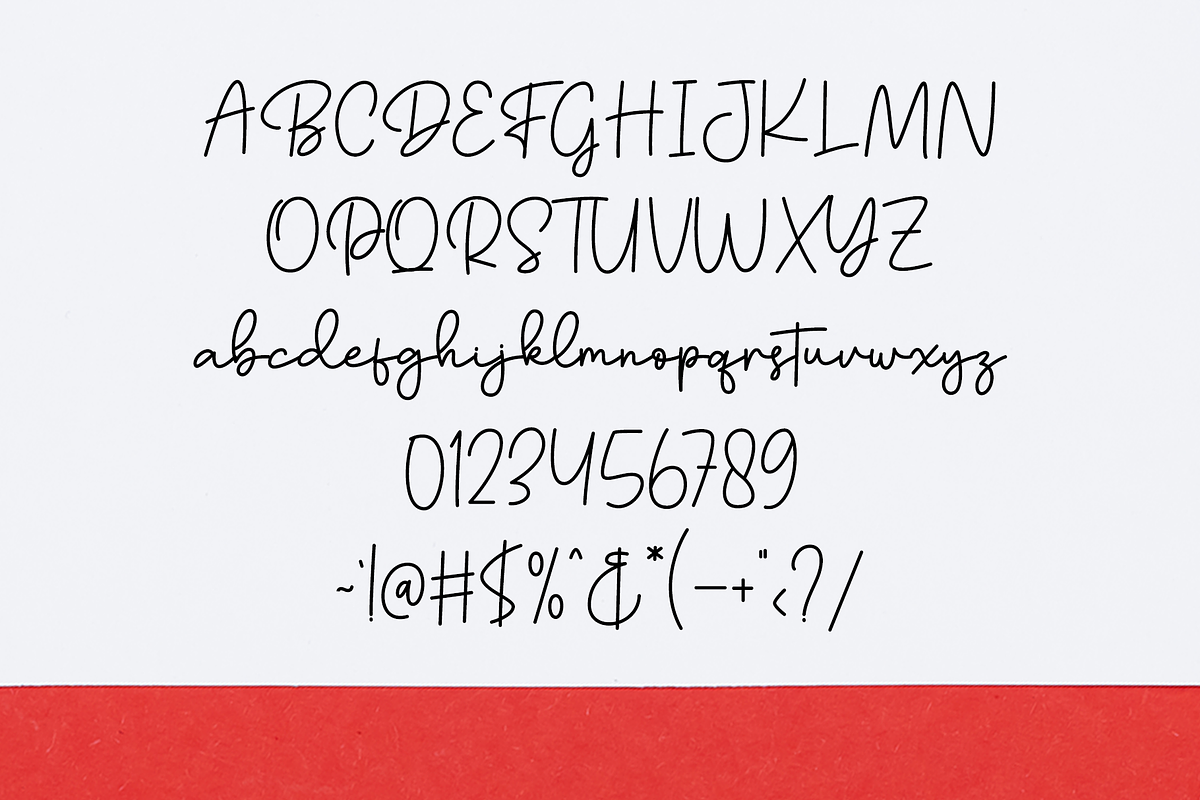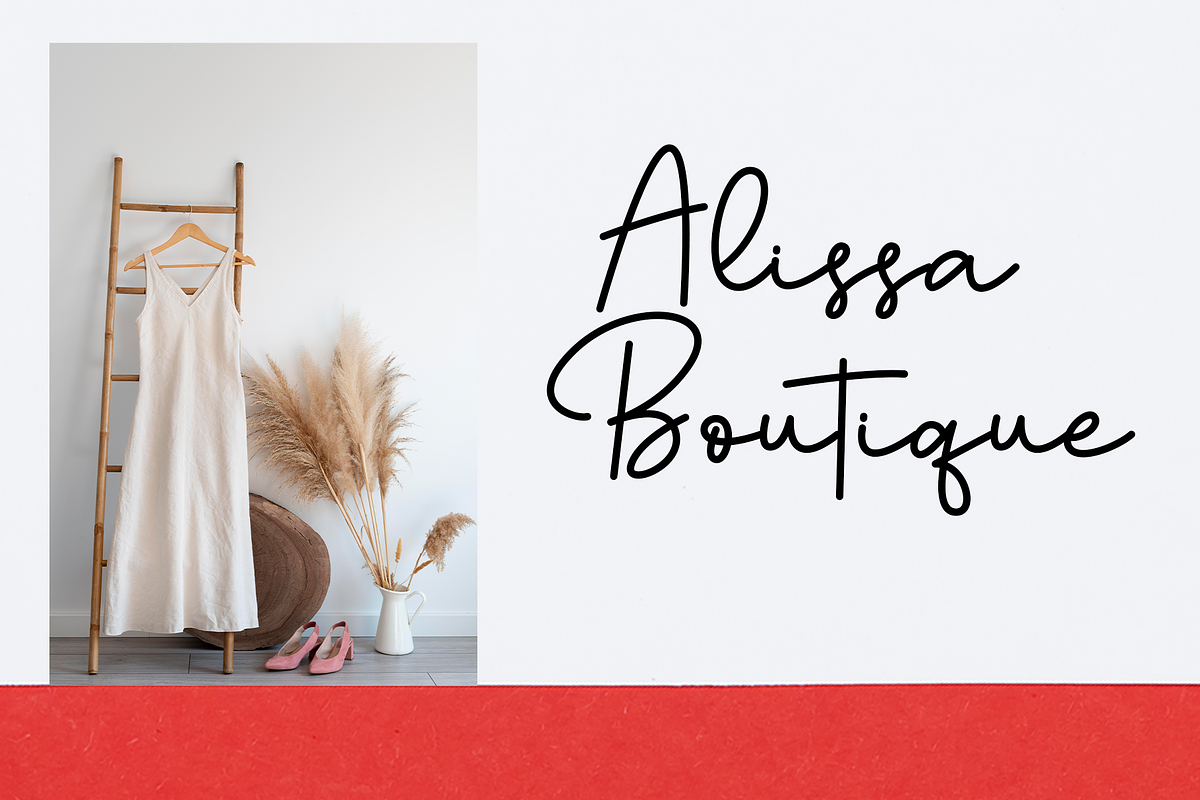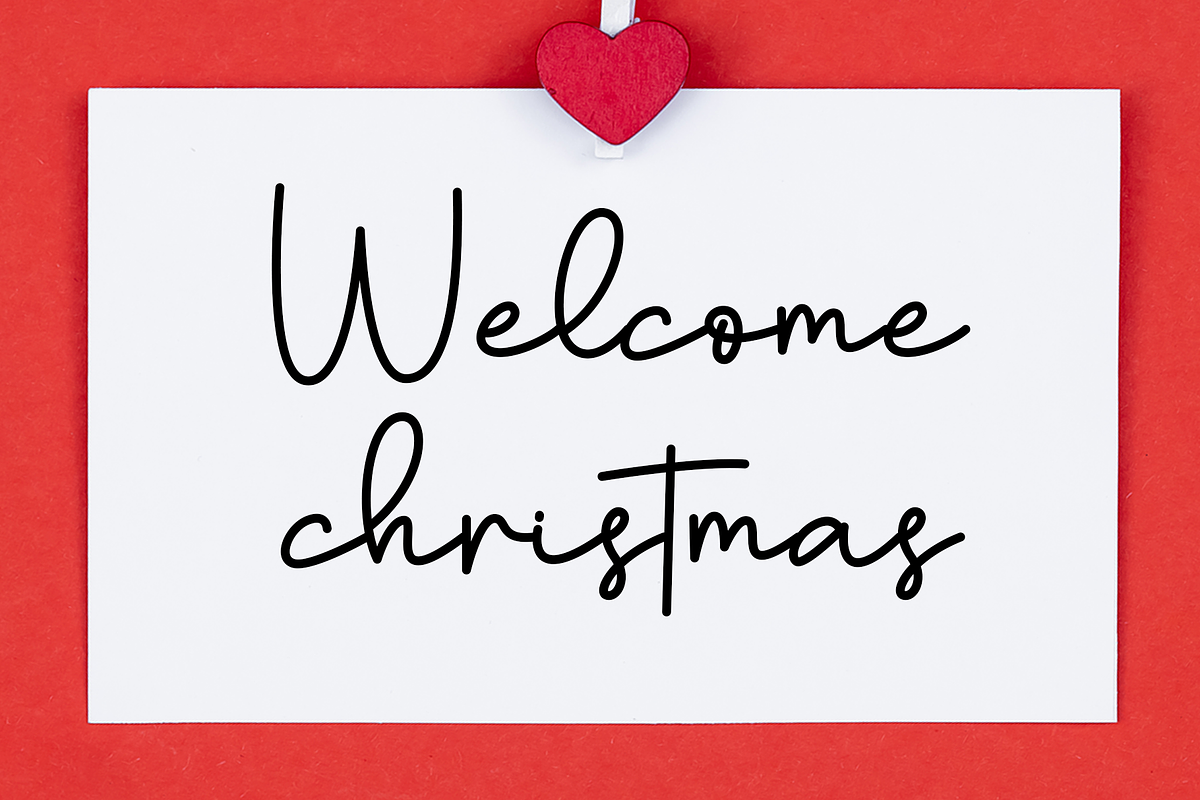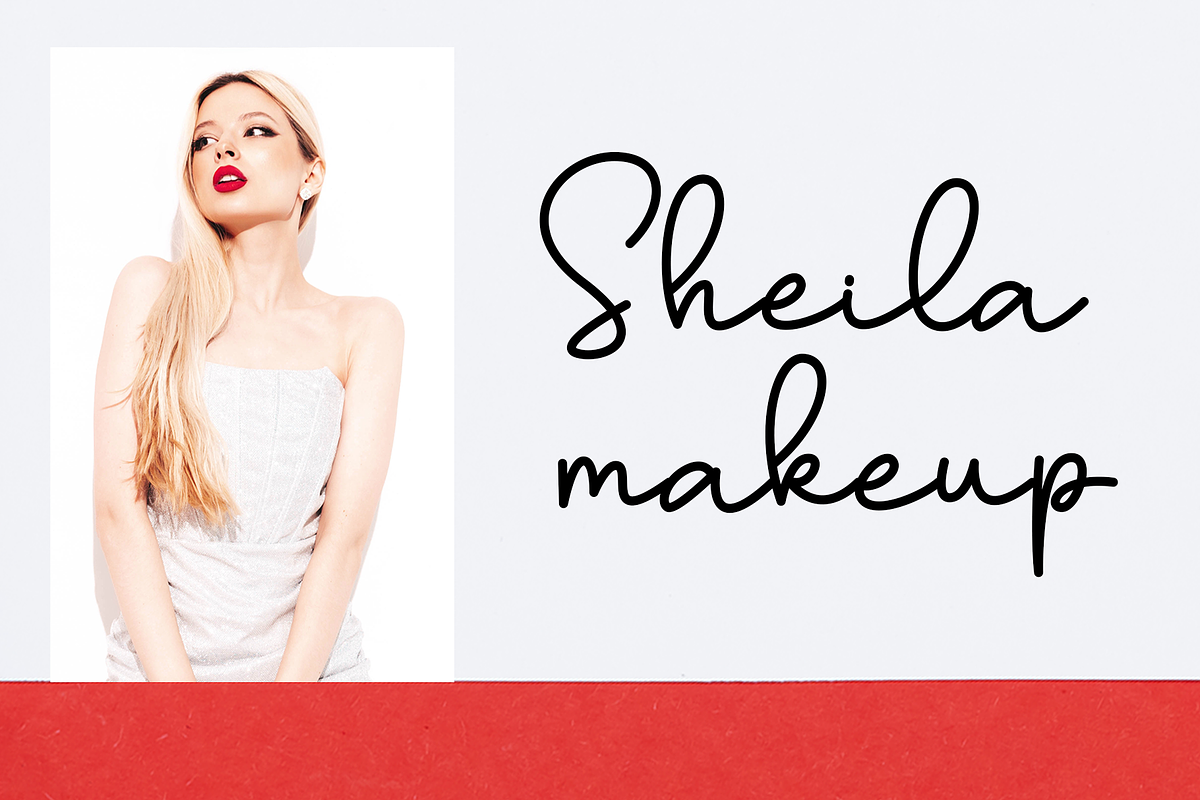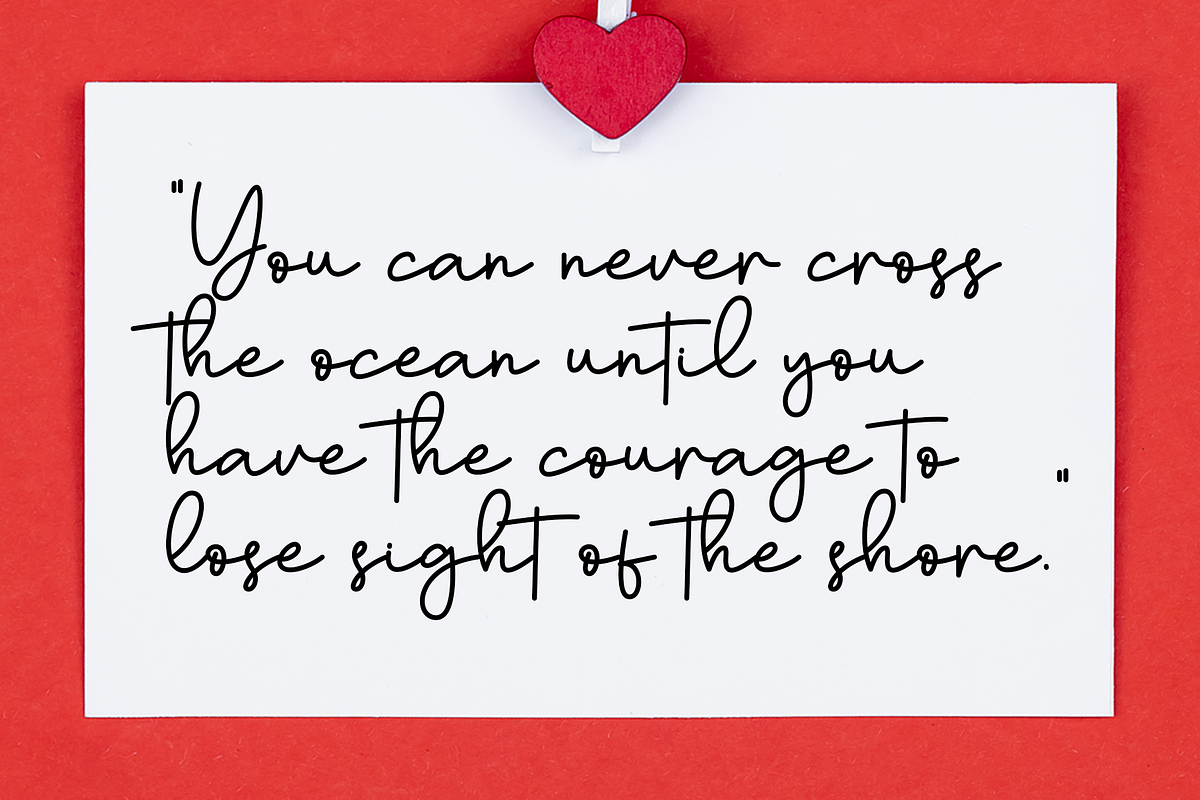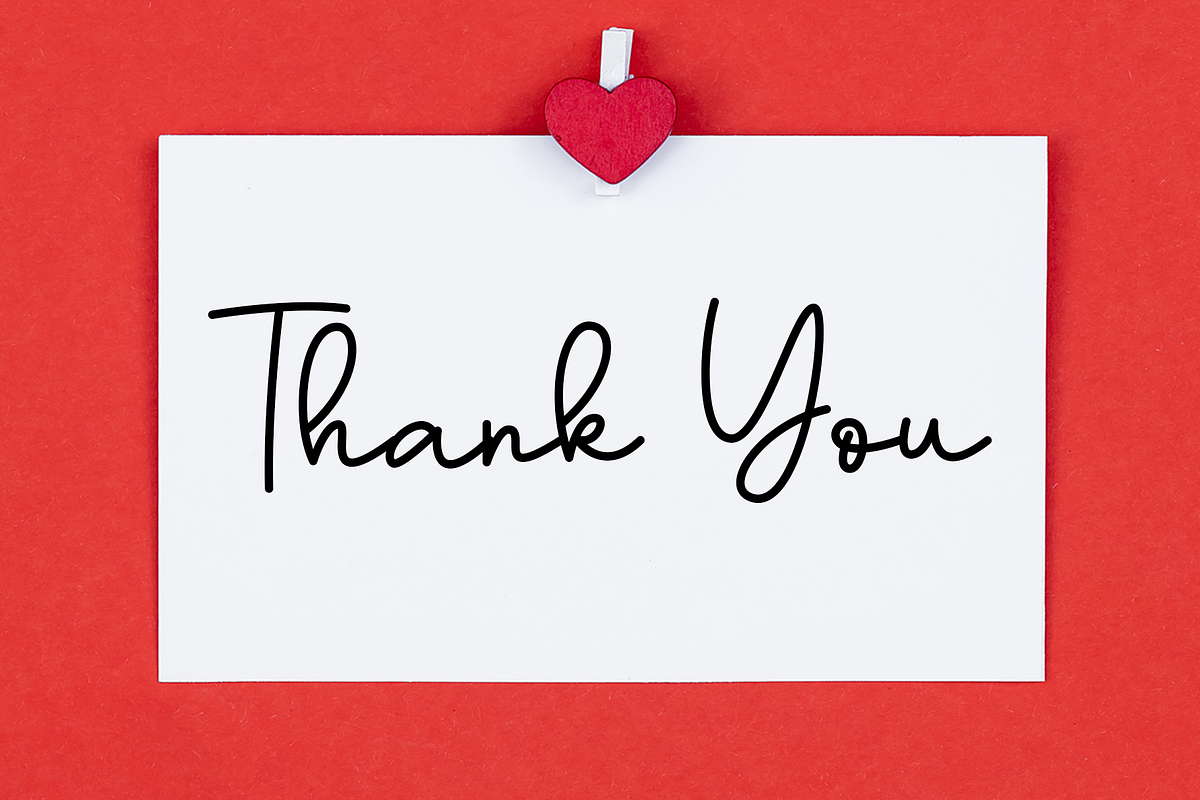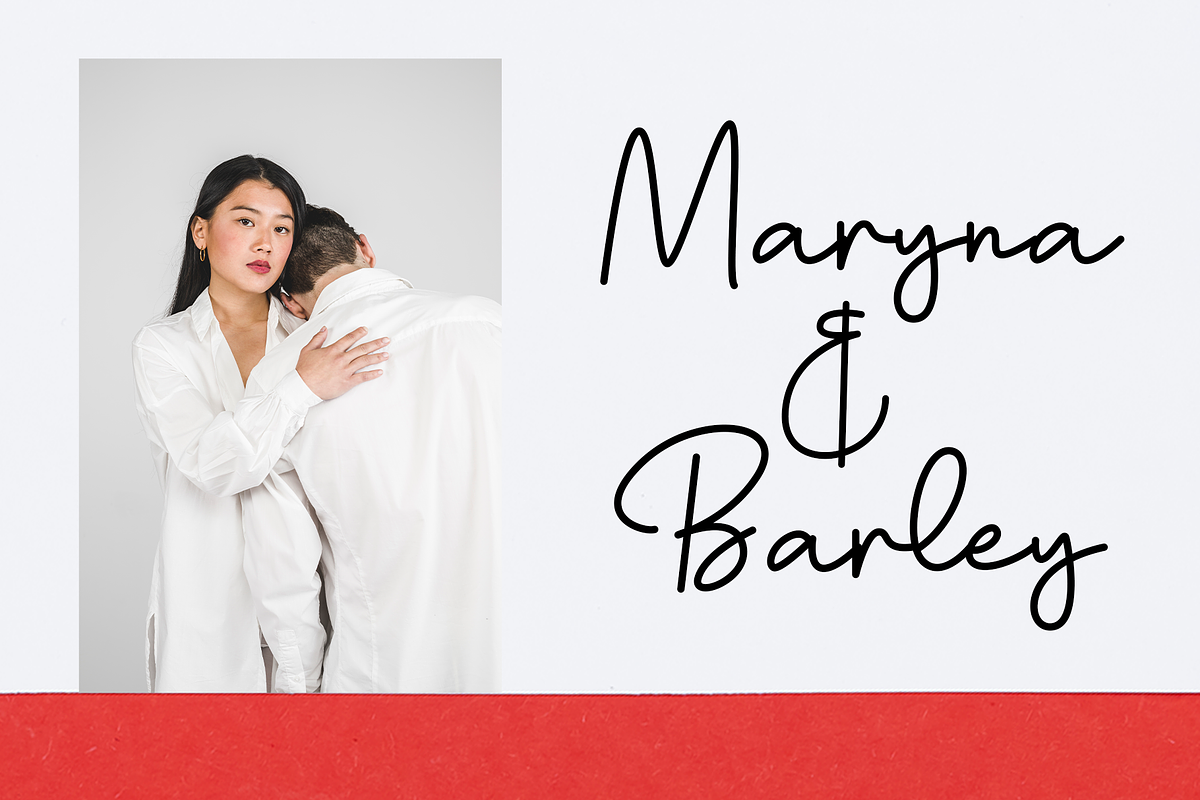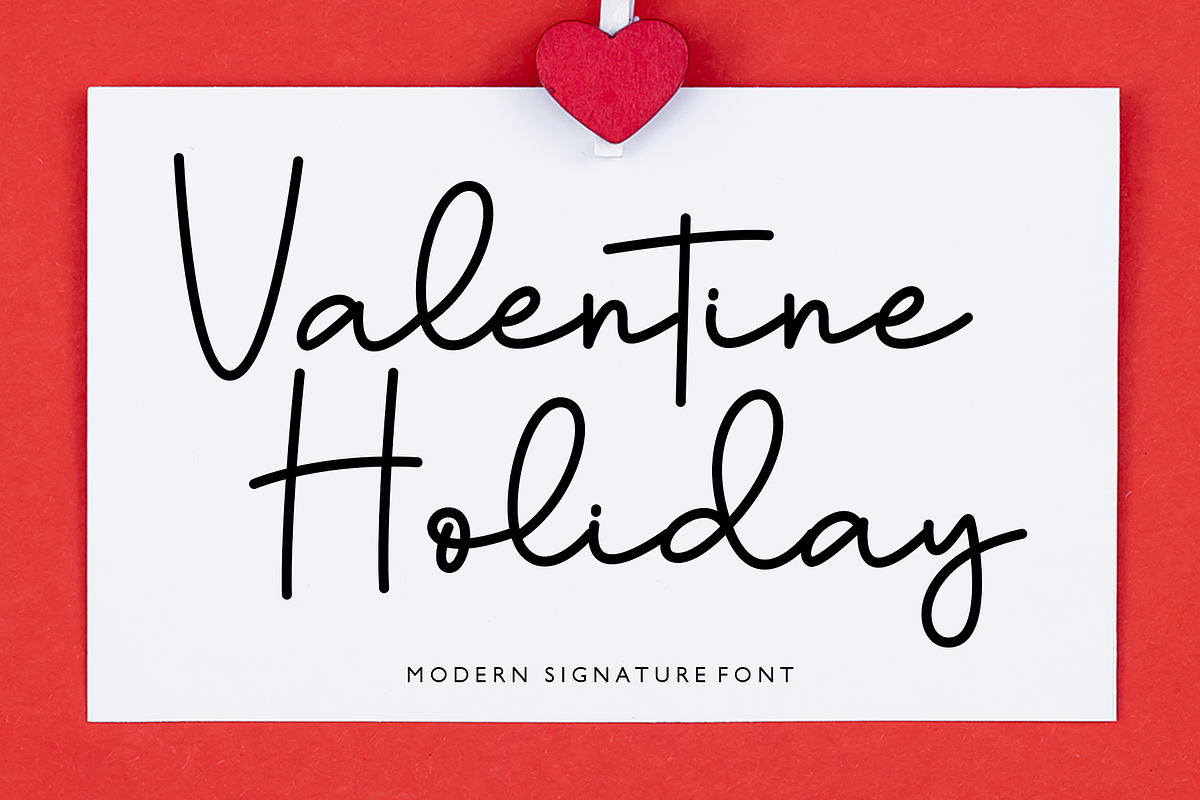
Valentine Holiday
Introducing Valentine Holiday, the epitome of elegance meets casual chic in a handwritten font style. The distinct beauty of this font lies in its charming exclusivity, effortlessly infusing a touch of luxury into any design. With Valentine Holiday, immerse in an artistic journey that flaunts your creativity in an unparalleled way, making every word you scribe, a masterpiece.